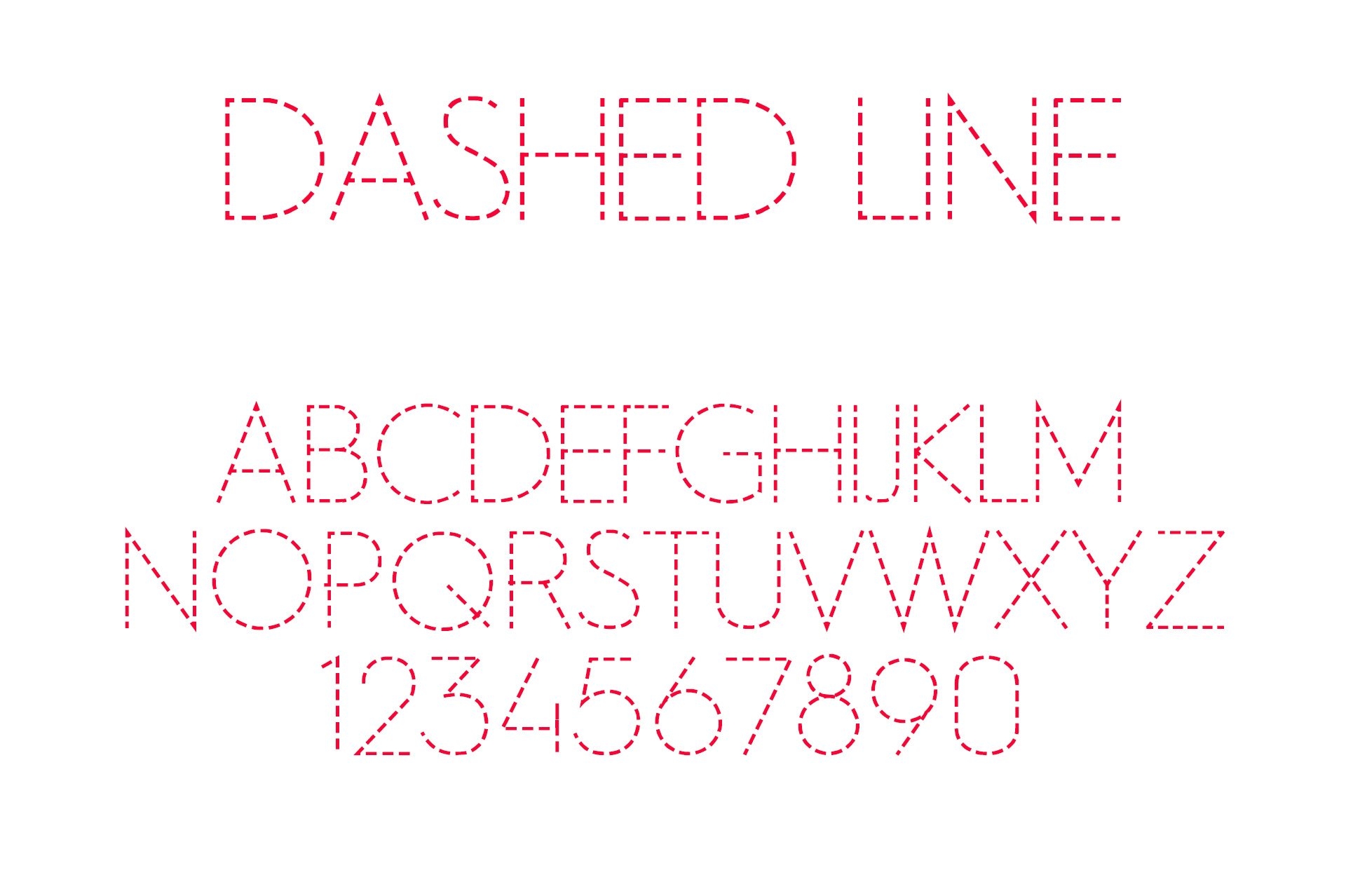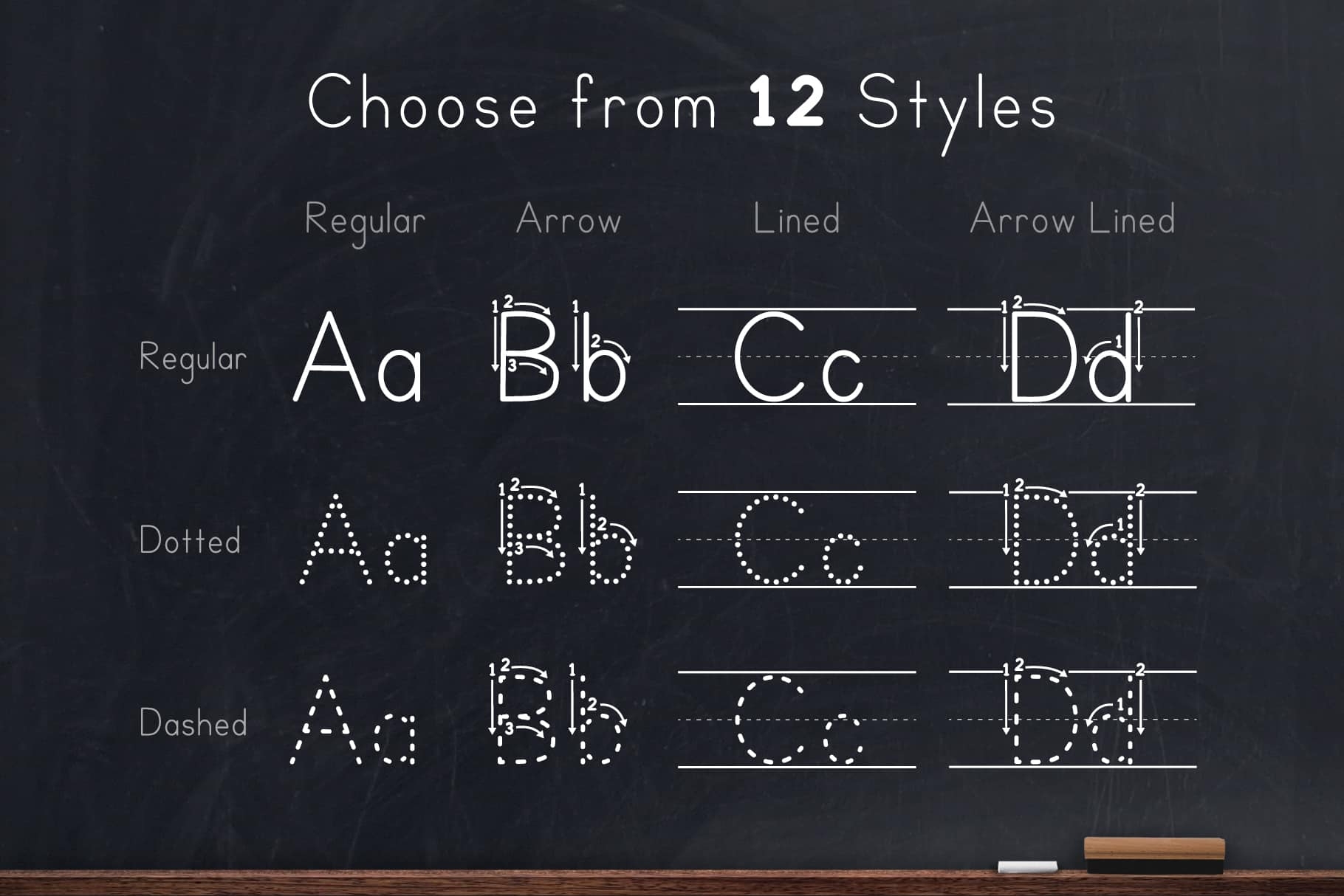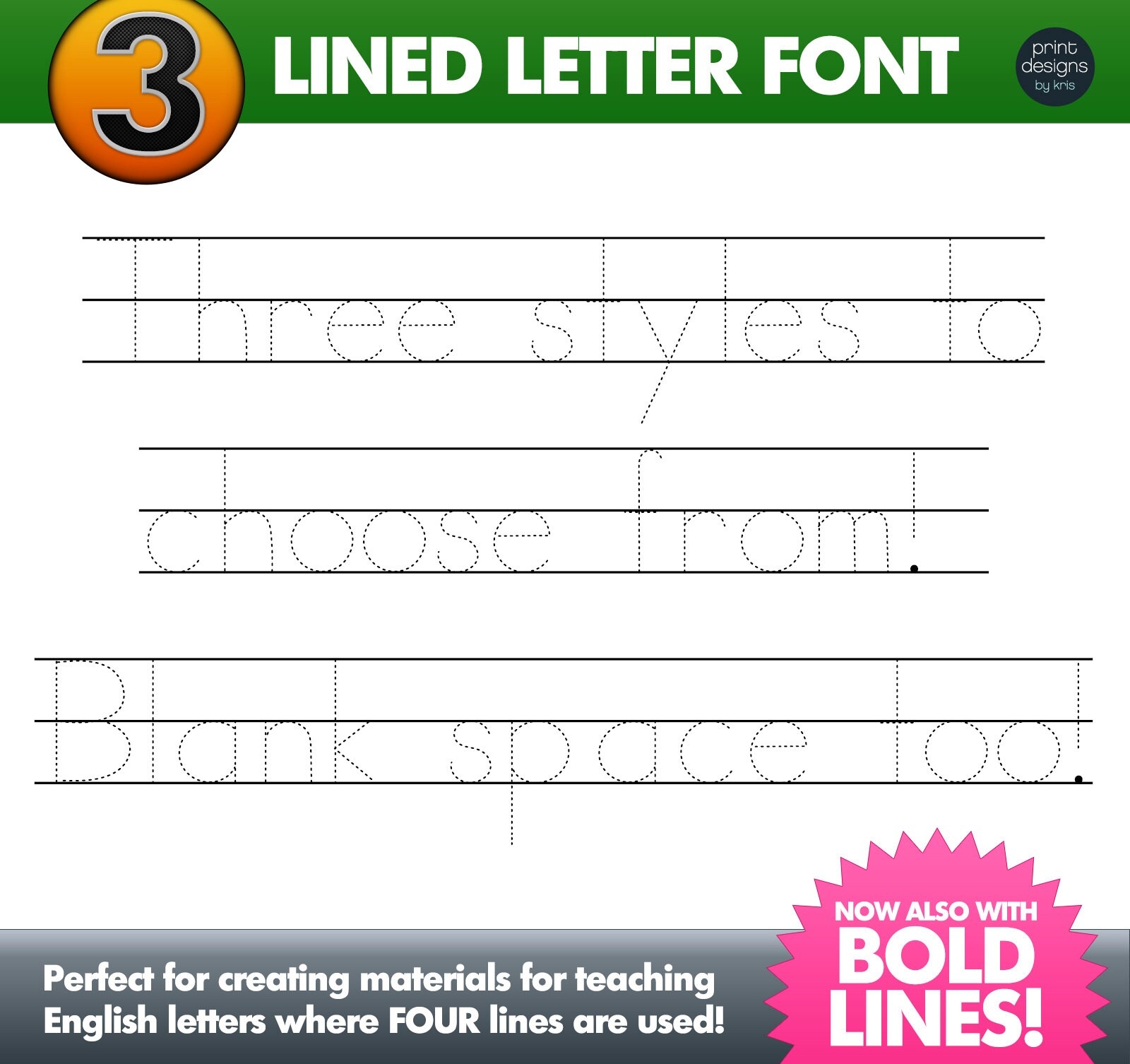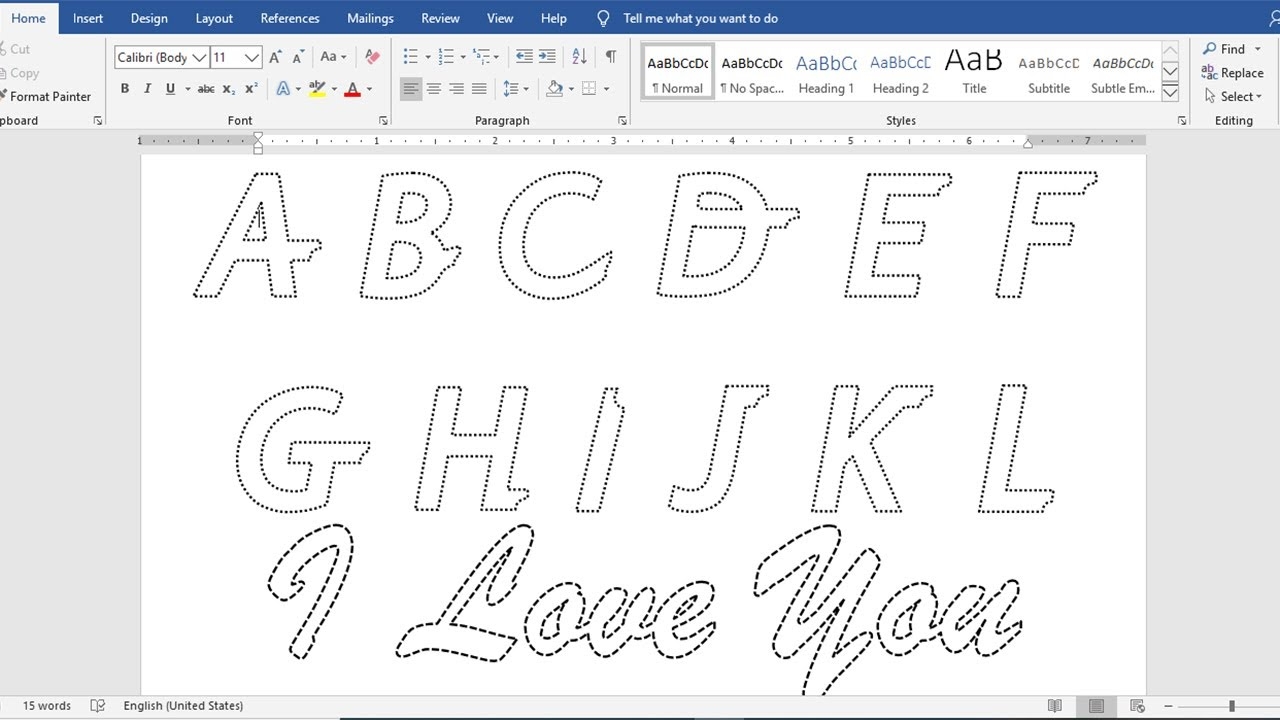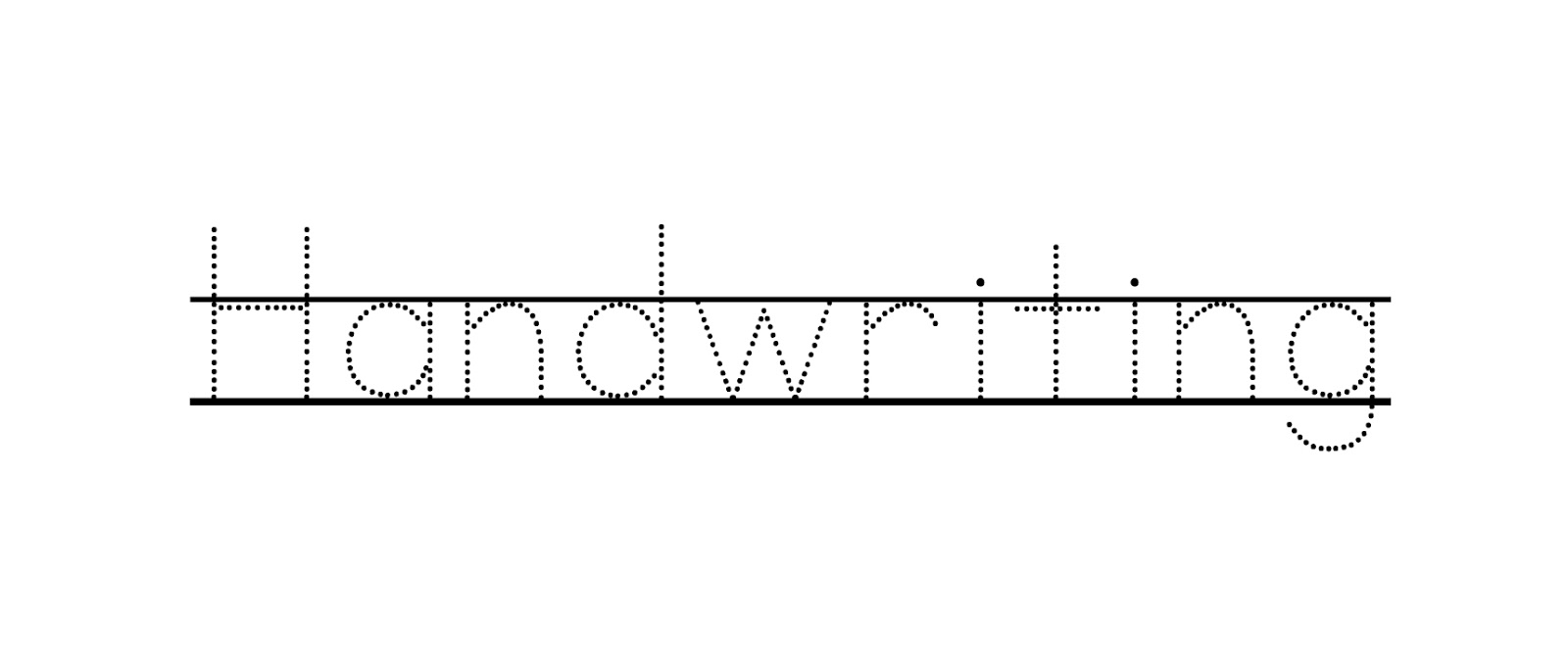
Tracing letters can be a fun and educational activity for children. It helps improve their handwriting skills while also enhancing their fine motor abilities. Using a dotted line font makes this process even easier and more engaging.
Dotted Line Font For Tracing
Dotted line fonts are specifically designed to aid in letter formation. They provide a visual reference that allows children to see where they should write. This can be particularly helpful for beginners who are just starting to learn how to form letters.
Incorporating tracing activities into daily routines can make learning enjoyable. Whether it’s through worksheets or fun games, using a dotted line font can transform the way children approach writing. It turns practice into play!
Encouraging kids to trace letters with a dotted line font not only enhances their writing skills but also fosters creativity. With consistent practice, they will gain confidence and improve their overall handwriting abilities.